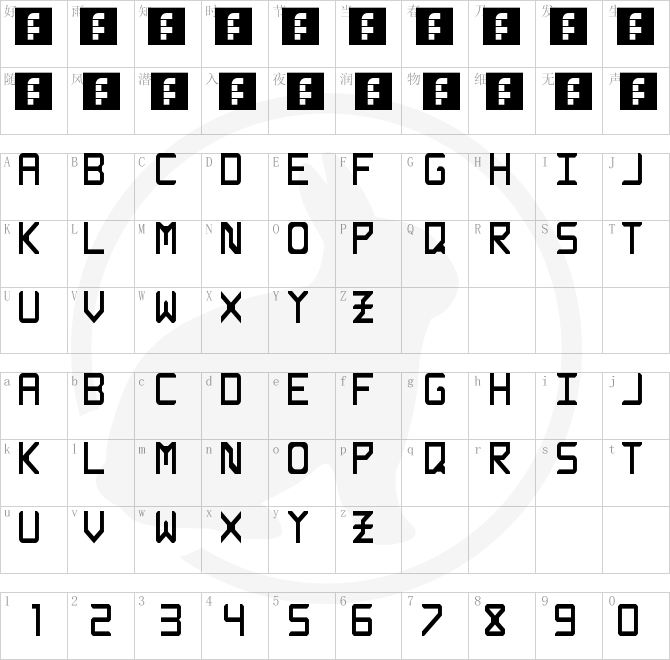
- Font Name:Rabbid Highway Sign Caps Narrow
Rabbid-Highway-Sign-Caps-Narrow-Regular.ttf is a very beautiful artistic font, Rabbid-Highway-Sign-Caps-Narrow-Regular.ttf is widely used in the design and printing of various books and pictures,Rabbid-Highway-Sign-Caps-Narrow-Regular.ttf has a strong visual impact,Rabbid-Highway-Sign-Caps-Narrow-Regular.ttf is a commonly used font in newspapers, magazines and books, and is used in posters, e-commerce Poster design, store design, logo design, font design and other fields.Rabbid-Highway-Sign-Caps-Narrow-Regular.